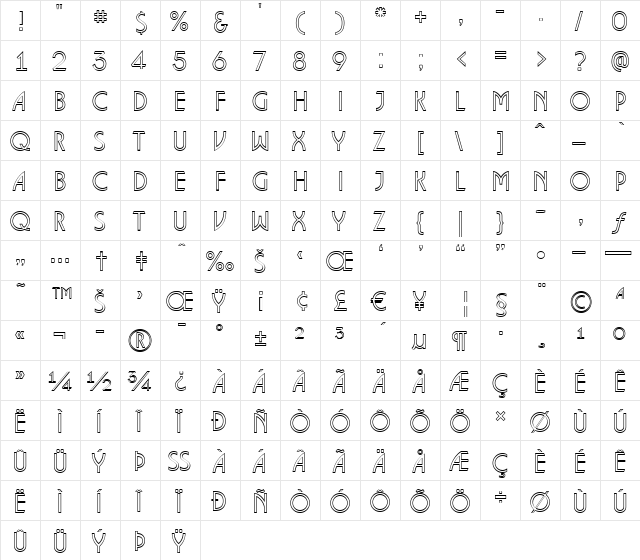
a_LancetOtl Regular
| Designer | W.Chufarofsky & M.Slutsker |
Design Context for a_LancetOtl Typeface
a_LancetOtl offers clean, dependable letterforms without strong stylistic allegiance, making it a practical choice for designers who need flexibility.